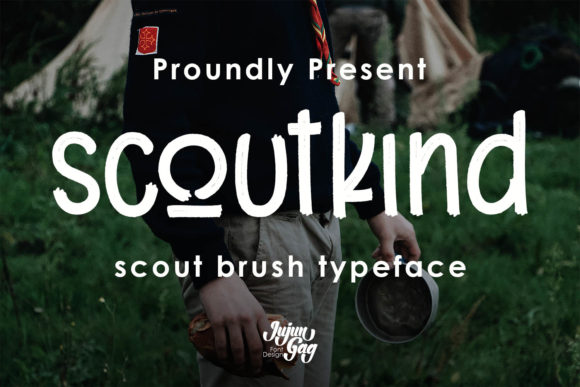
Introducing Scoutkind - the font that will add a touch of whimsy and joy to your Christmas cards. With its playful and casual style, this font is perfect for capturing the magic and spirit of the holiday season.
Crafted by the talented designers at Nerdstudio, Scoutkind is a handwritten font with a touch of spunk. Its unique and eye-catching characters are sure to make your Christmas cards stand out from the crowd.
Whether you're creating cards for family, friends, or loved ones, Scoutkind is the perfect font to add a personal touch. Its warm and inviting style will spread holiday cheer to all who receive your cards.